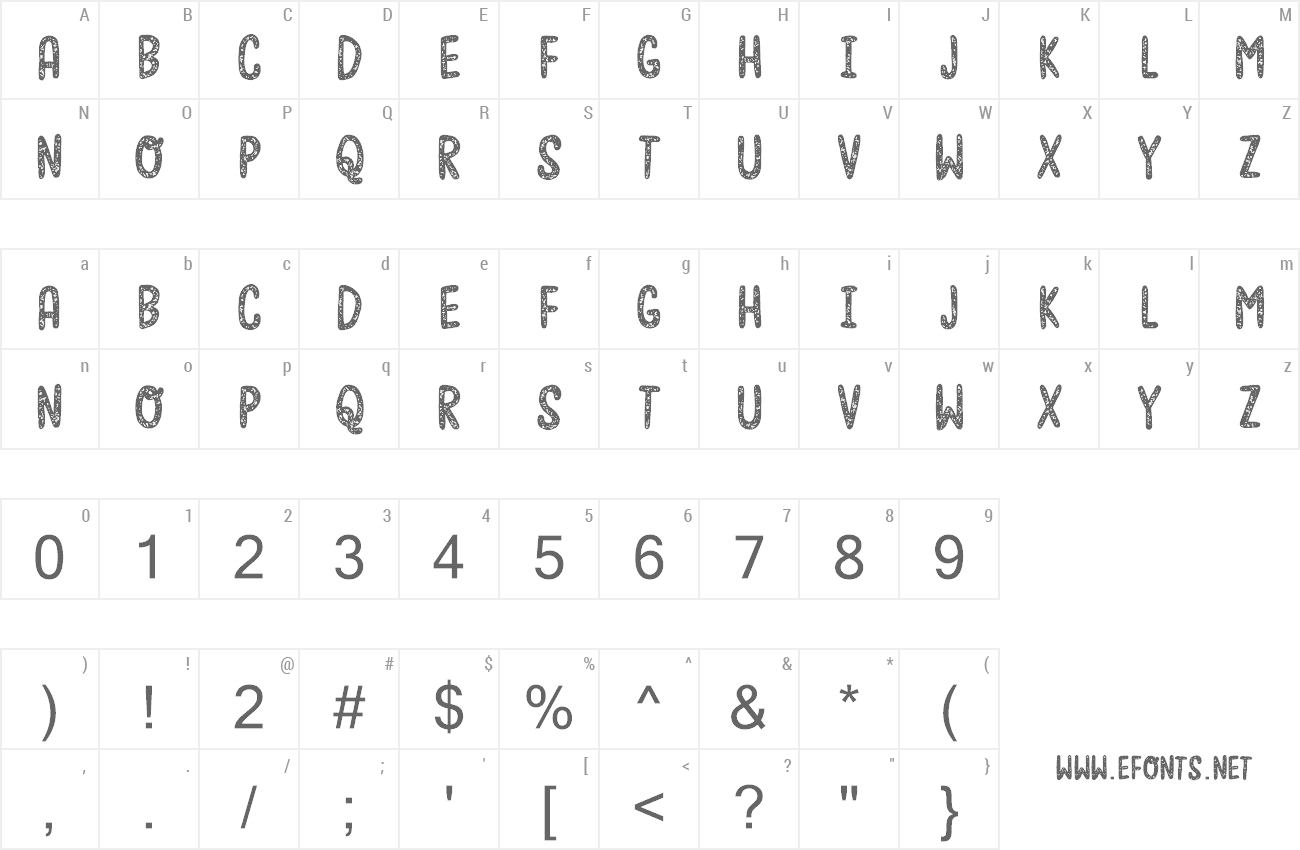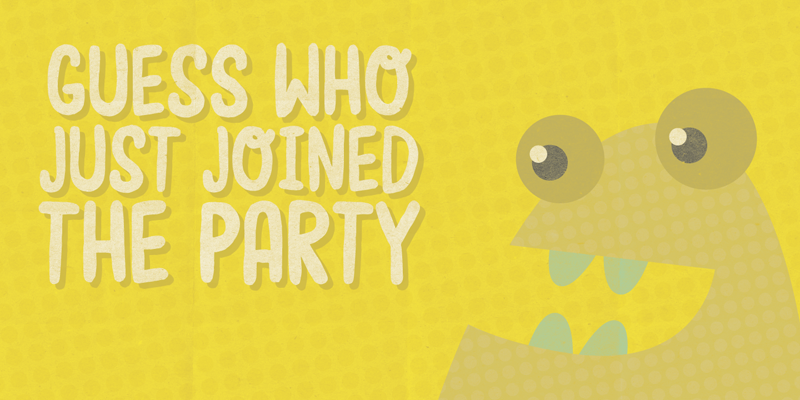
| Note by Pizzadude | |
Moonfish swims between magic and fantasy. With its rounded corners and edges, Moonfish leaves a smooth and very legible impression. Comes with alternate upper- and lowercase along with swashy alternates for all lowercase letters! Download the FULL version here: https://www.myfonts.com/fonts/pizzadude/moonfish/ |